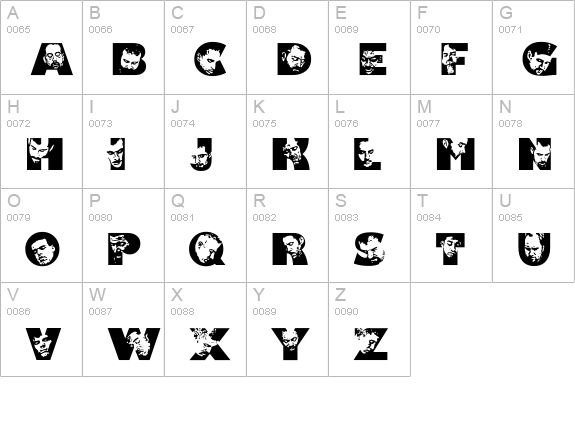
Hymn font is a beautifully designed typeface that exudes elegance and sophistication. Its graceful curves and intricate details make it perfect for adding a touch of class to any project. The versatility of Hymn font allows it to be used in a wide range of design applications, from invitations to branding to editorial layouts. Best of all, Hymn font is available for free download at FontsMarket.com. This means that you can easily add this stunning font to your collection without having to spend a dime. So why wait? Enhance your designs with the timeless beauty of Hymn font today!